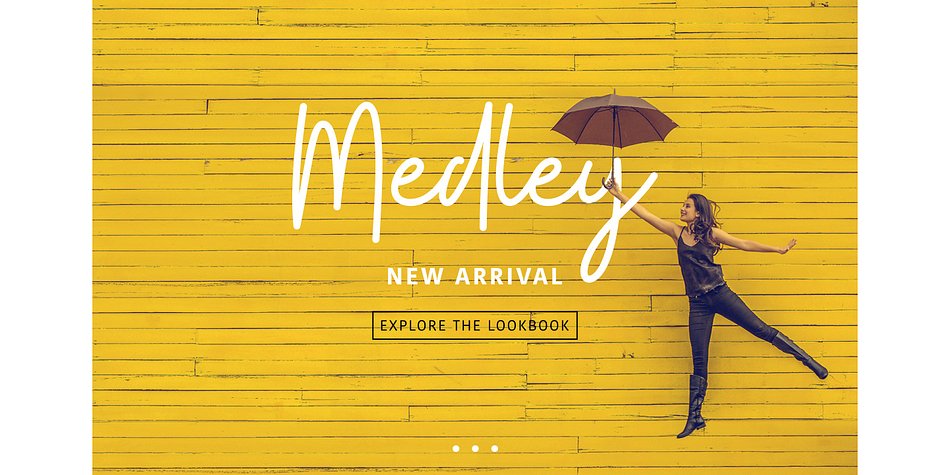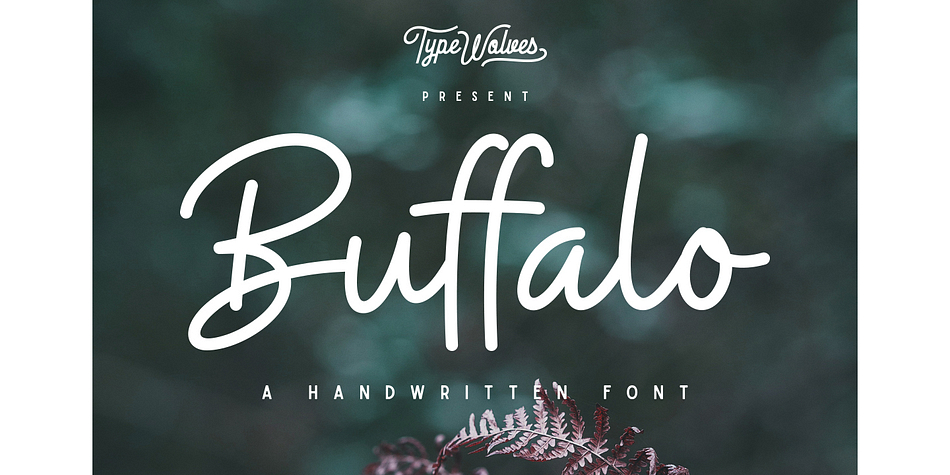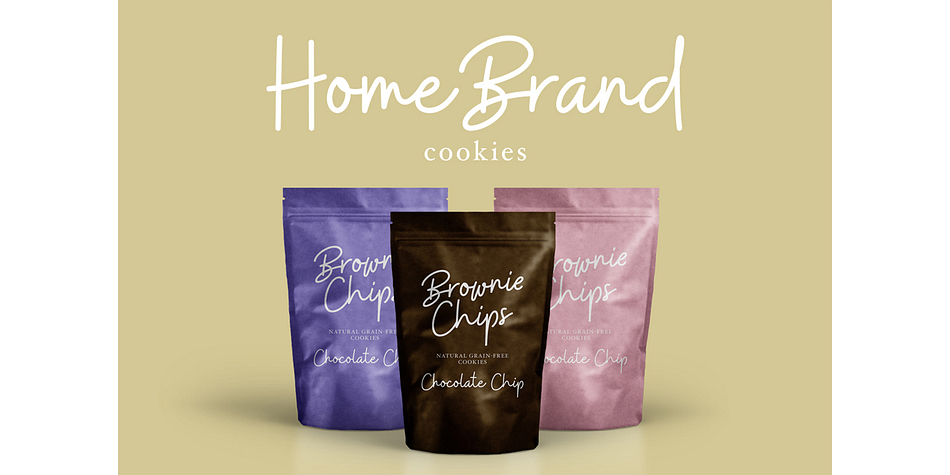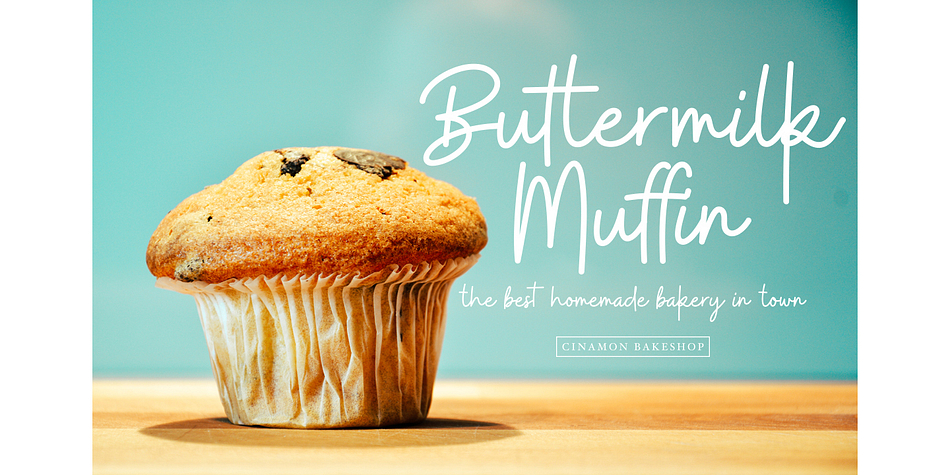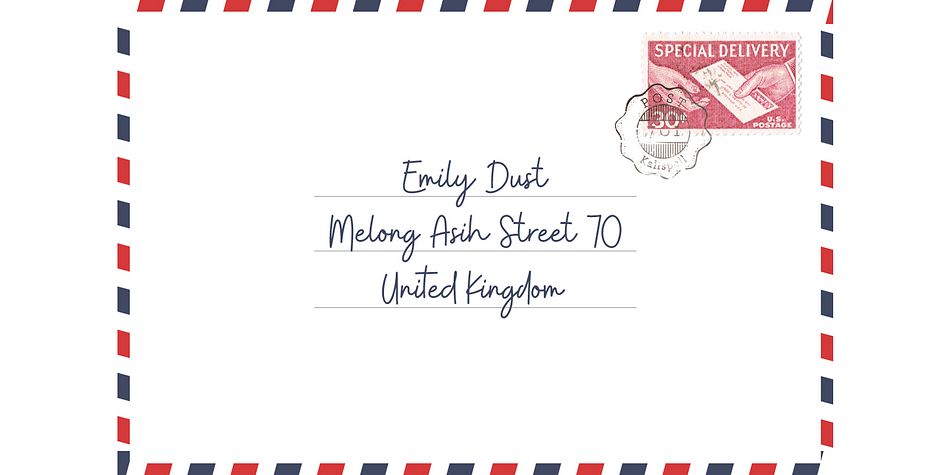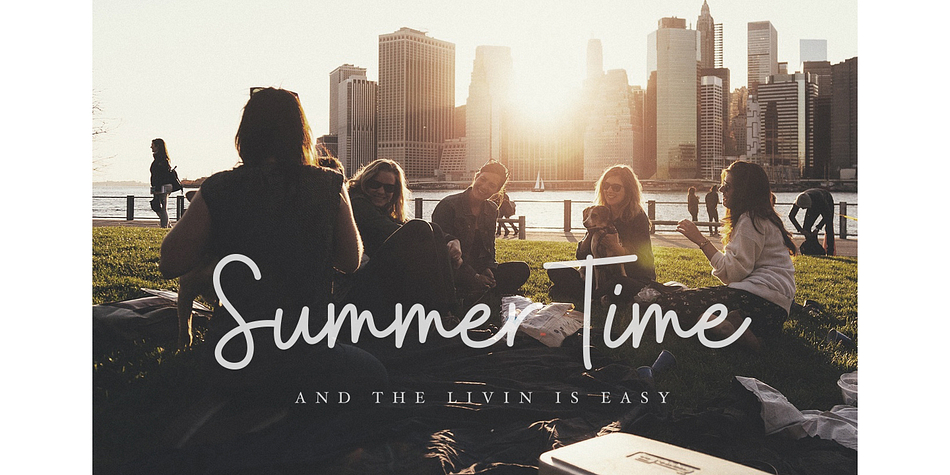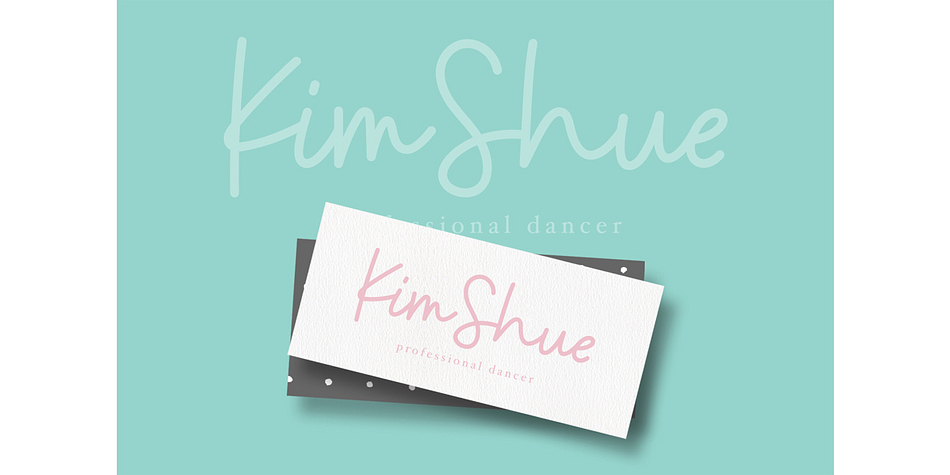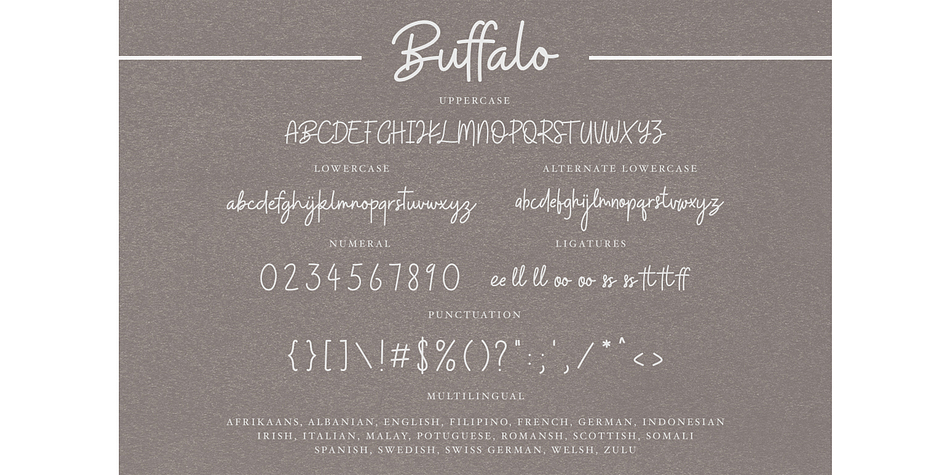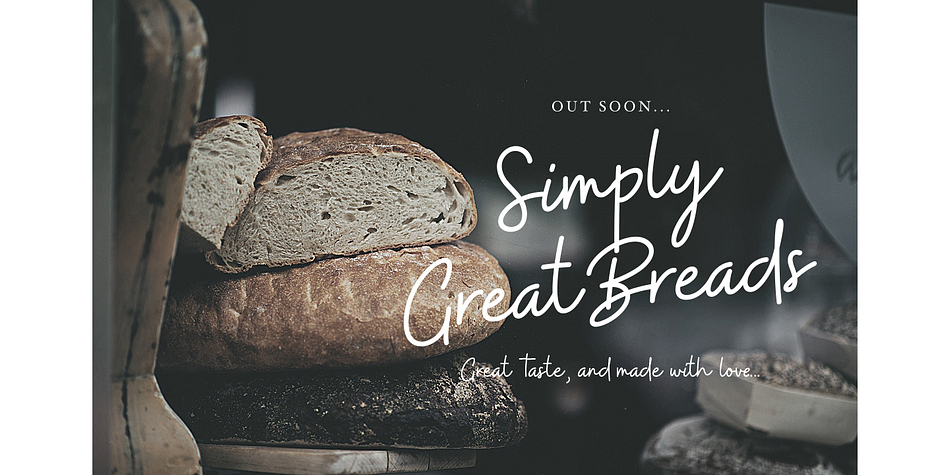
Designed by Angga Mahardika, Buffalo is a script font published by Try&Error Studio.
Buffalo has an alternate character from a-z. This font is very easy and simple for the purposes of your design project. Buffalo has two sets of lowercase letters, uppercase letters, punctuation, numbers, and multilingual. Buffalo is perfect for greeting cards, magazines, branding, social media, print, packaging, and much more.